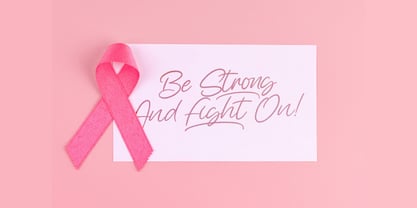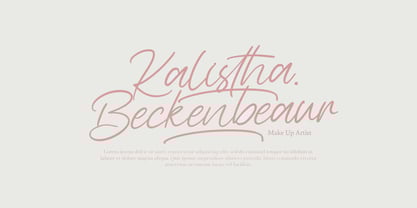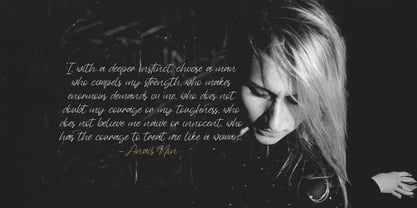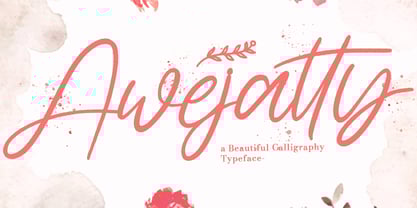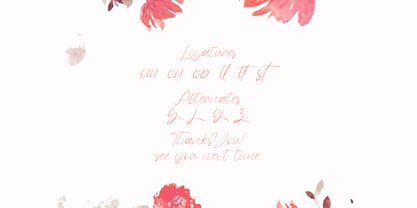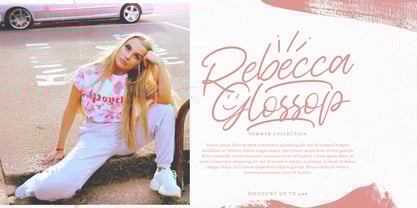
The Awejatty Font Family was designed by Virgiawan Listanto and published by Stringlabs Creative Studio. Awejatty contains 1 styles. More about this family
Awejatty is a playful handwritten font with a modern twist, bringing together natural curves and smooth strokes for a look that’s both casual and confident. With its lively flow and personal touch, Awejatty is perfect for creative projects that need a dash of character and charm. Ideal for branding, social media, invitations, and more, Awejatty makes your words feel warm, expressive, and uniquely yours.